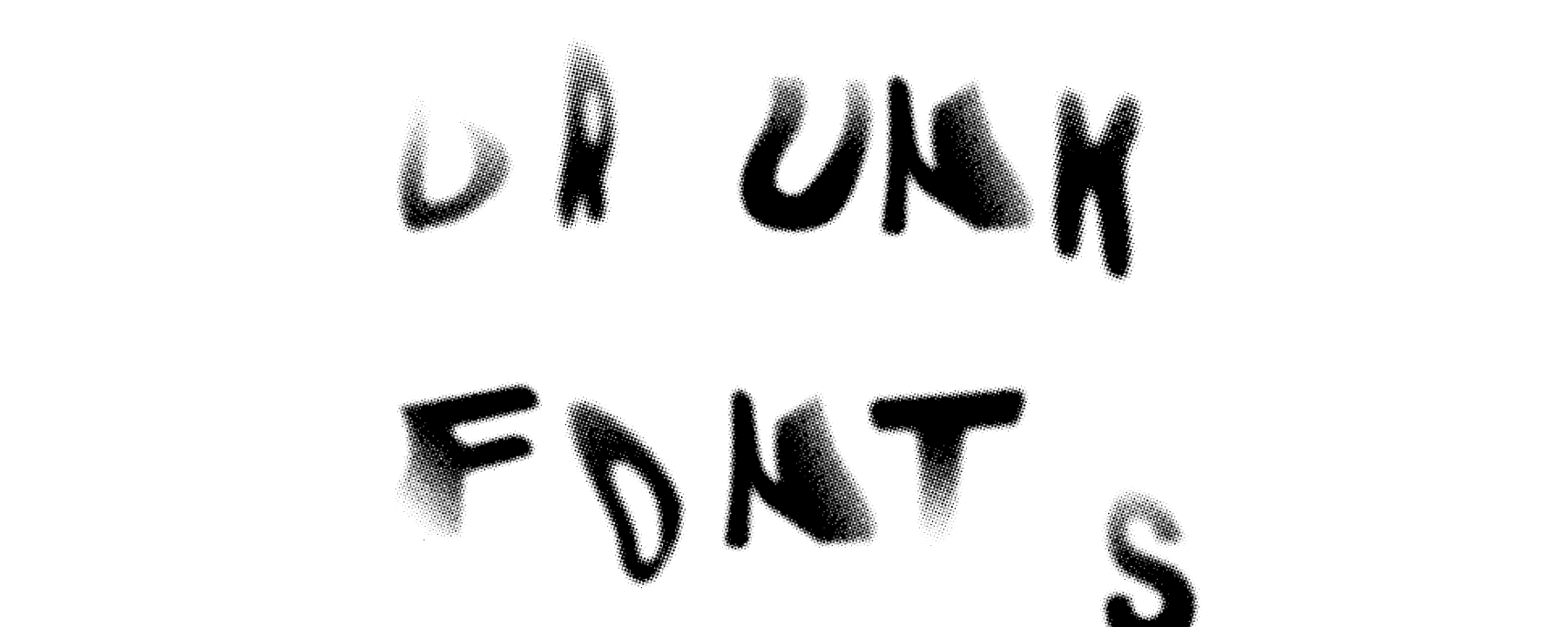
Drunk Fonts Font Preview
Drunk Fonts
Drunk Fonts is a fancy font designed by VSV FAMOUSGREY and published by SachaLempereur & Famousgrey (2023). It's a decorative display font with plenty of personality, made to grab attention. It's a free download, and you can try it with your own text in the preview above first.
What You Can Type With Drunk Fonts
Drunk Fonts covers the full alphabet in upper and lowercase, plus all ten numbers, so you can set names, dates and prices without switching fonts. Punctuation is limited, so look at the character map if you need a specific symbol. It doesn't include accented letters such as é or ñ, which makes it an English-only font.
Where Drunk Fonts Works Best
Designers usually reach for fonts like Drunk Fonts when they're making posters, logos and eye-catching headlines. Its heavy strokes stay readable from a distance and on top of photos, which suits signs, thumbnails and posters. The file has no kerning data, so in logos and big titles check pairs like AV, To and Wa and tighten the spacing by hand. Use it for one standout word or headline and let simpler fonts handle the rest.
Does Drunk Fonts support accented letters?
No. Drunk Fonts has no accented letters such as é, ñ or ü, so it's best for English text.